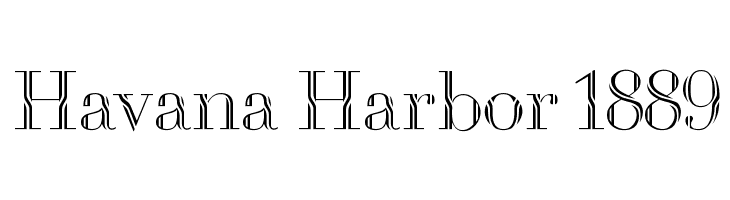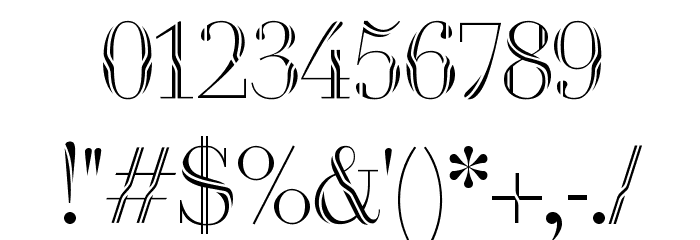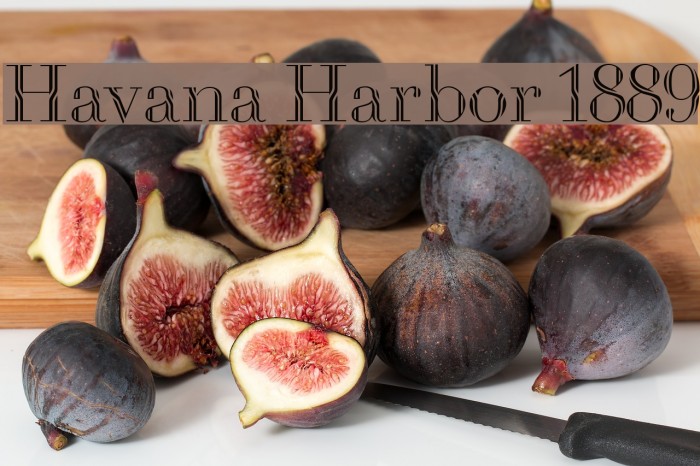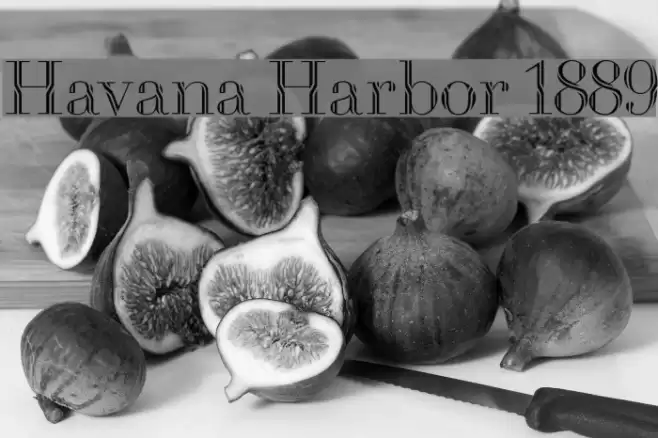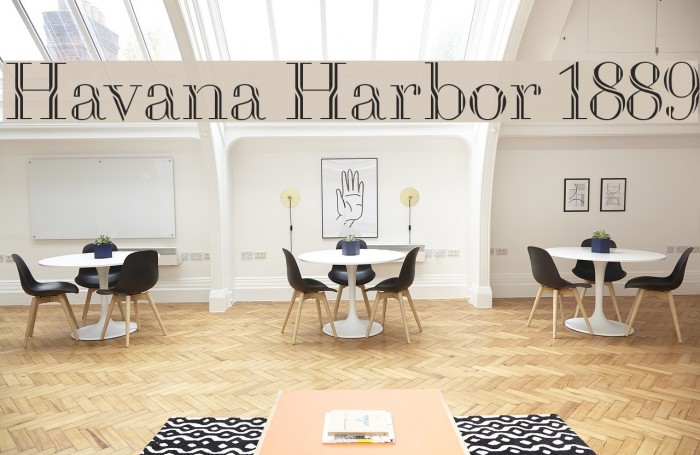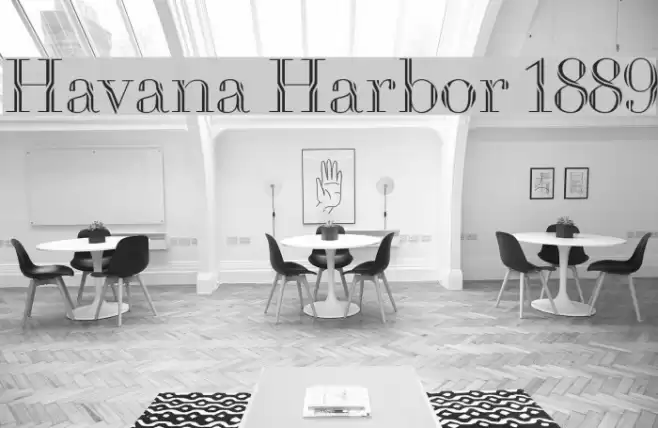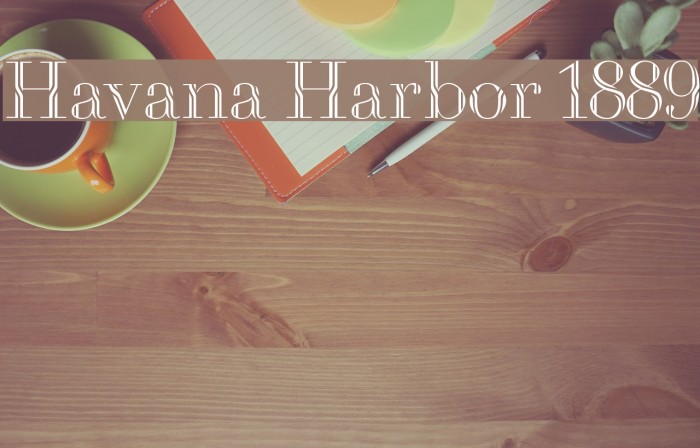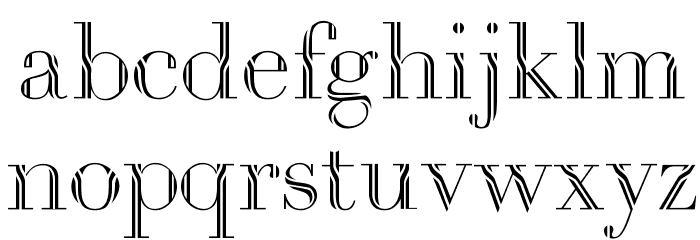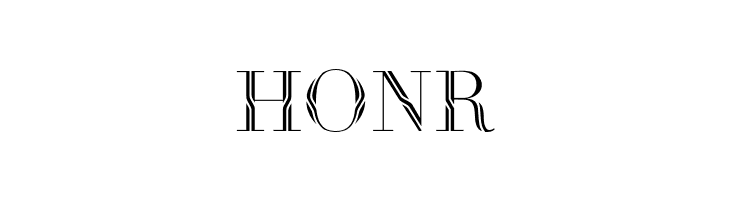
Havana Harbor 1889 Font
This font features a unique blend of classic and modern elements, characterized by its elegant serif style with a distinctively decorative flair. The uppercase letters are bold and commanding, with intricate line work that adds a touch of sophistication. The lowercase letters maintain a consistent style, offering a harmonious balance between readability and artistic expression. Numbers are clear and well-defined, matching the overall aesthetic of the alphabet. Special characters are thoughtfully designed, ensuring they complement the font's overall look. This font's intricate detailing and stylish design make it suitable for a variety of creative applications.
An elegant serif font with decorative elements and intricate line work.
• Proposed Projects: Ideal for branding, editorial design, invitations, and luxury product packaging.